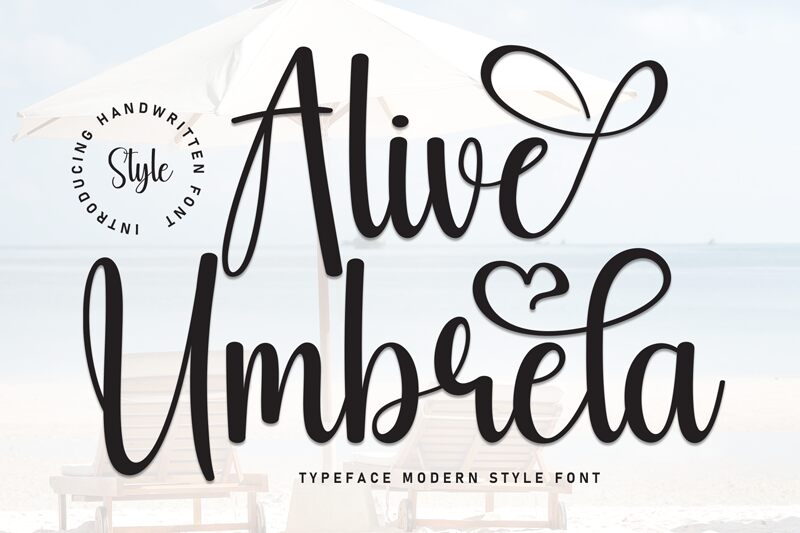
Alive Umbrela
Alive Umbrela font by Scratchones is a handwritten free font combining cursive script and modern calligraphy influences. Its organic flow, fluidity, and casual elegance beautifully showcase the artist's hand with a personal touch. Use Alive Umbrela across seasonal design graphics with heartwarming visual presence and impactful emotional mood.
Use it for holiday cards, social media posts on Instagram and Facebook, covers of store catalogs, posters, magazines covers and pages layout, website headlines/paragraphs/footer content info along product catalogs of e-commerce businesses.